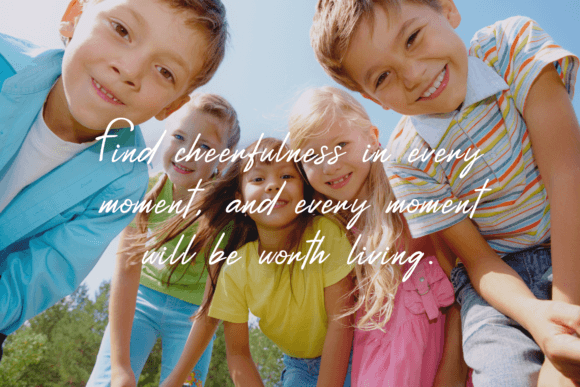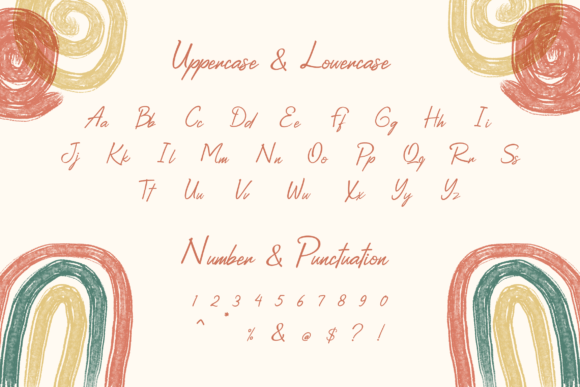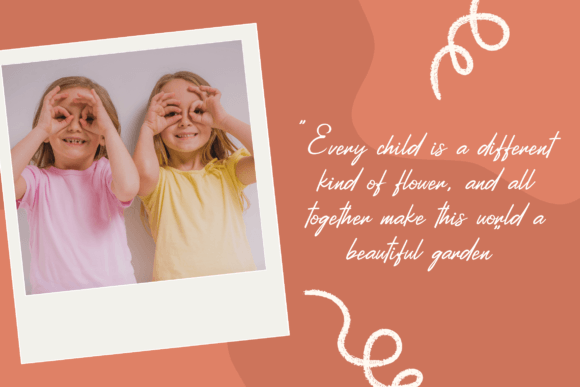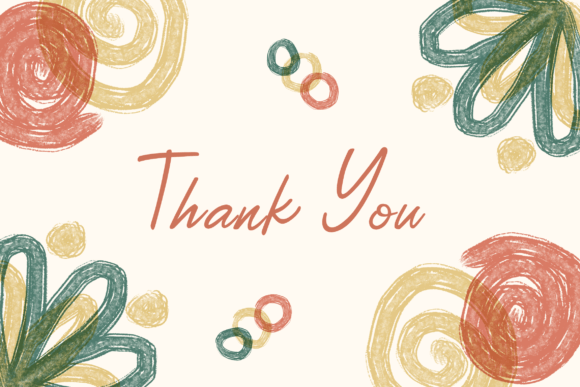
The Designer’s Delight: How Bergegas Font Can Elevate Your Creations
I’ll never forget the time I was working on a branding project for a children’s play center. I had a clear vision of a fun, vibrant space, but I was struggling to find the right font to bring it all together. That’s when I stumbled upon Bergegas – a modern handwritten typeface that added a playful twist to my design. With its whimsical letterforms and unique charm, it was perfect for eye-catching headlines, vibrant posters, and playful branding projects.
An Honest Review of Bergegas Font
- ✨ Unique and playful letterforms that add a touch of personality to any design
- 🎉 Extensive OpenType features, including glyphs and stylistic alternates
While Bergegas is an amazing font, there are a few things to keep in mind:
- 🤔 Some of the more intricate glyphs and stylistic alternates may not work well at very small font sizes
- ⚠️ The font may not be suitable for body text or long-form content, as it’s designed primarily for headlines and titles
The Story Behind Bergegas Font
Bergegas was designed by a young, talented type designer who was inspired by the playful, whimsical world of children’s books. With a passion for handwriting and lettering, the designer created Bergegas as a way to bring a touch of joy and personality to designs. Today, Bergegas is loved by designers and crafters around the world for its unique charm and versatility.
Q: What is Bergegas font best used for?
A: Bergegas is perfect for eye-catching headlines, vibrant posters, and playful branding projects. It’s designed to add a touch of personality and whimsy to your designs.